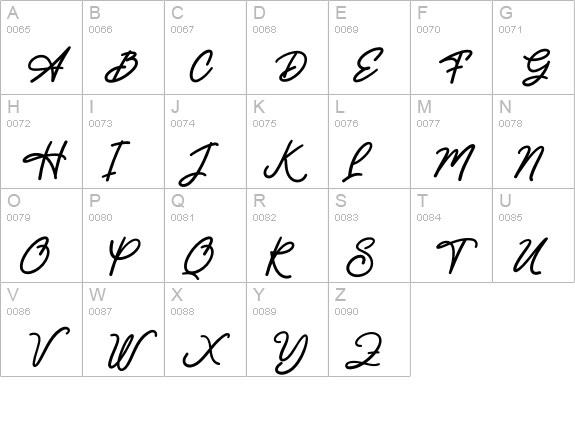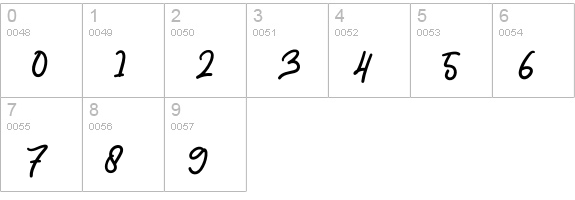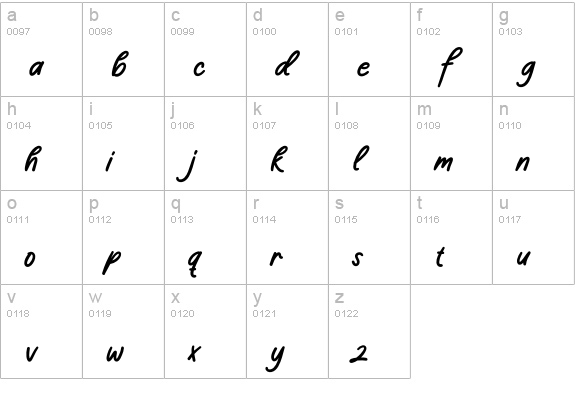
The Amstelveen font is a stylish and elegant typeface that exudes sophistication and charm. Its sleek lines and contemporary design make it perfect for a wide range of projects, from branding and logos to invitations and posters. This versatile font is sure to make your text stand out and captivate your audience.